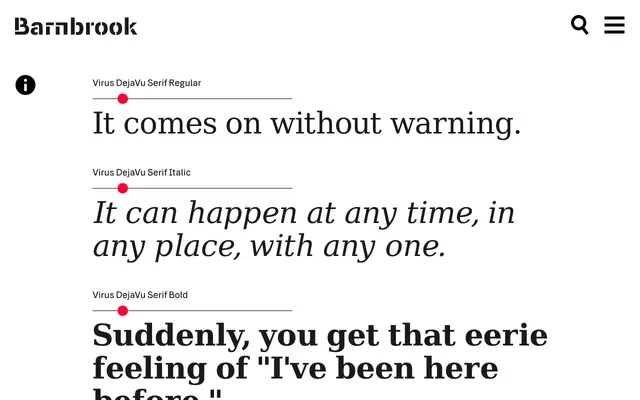
Virus DejaVu
Barnbrook · Jim Lyles · 2012
A manually respaced and partially redrawn adaptation of the open-source DejaVu fonts, developed by Barnbrook for the Mystetskyi Arsenal cultural centre and the Arsenale 2012 biennale in Kyiv.
Built atop the open-source DejaVu project, itself a development of Bitstream Vera originally designed by Jim Lyles in 2002, this family covers 13 weights across sans-serif, serif and monospace styles. Barnbrook manually respaced the originals and redrew select characters to suit the visual identity requirements of two major Ukrainian cultural commissions. Released under the same open-source licence as its predecessors, permitting derivative works and free redistribution.
Derived from Bitstream Vera and DejaVu, the family spans sans-serif, serif and monospace variants; the primary category is sans-serif following the DejaVu lineage, with humanist proportions inherited from Vera.